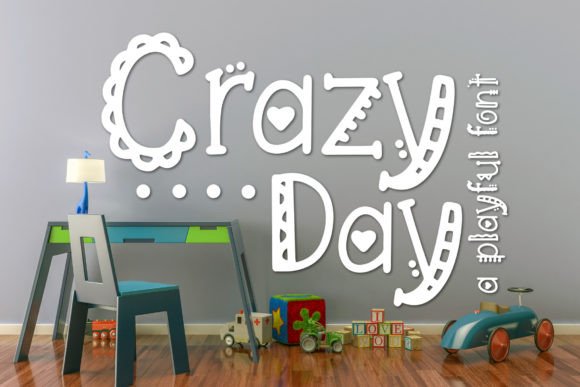
Crazy Day Font: Adding a Touch of Whimsy to Your Designs
In the world of typography, fonts play a crucial role in conveying the tone and personality of a design. Whether you’re working on a party invitation, a playful logo, or any project that requires a dash of creativity, the right font can make all the difference. This is where the Crazy Day font comes in – a whimsical and playful typeface that’s sure to bring out the fun in your designs.
What is Crazy Day Font?
Crazy Day is a unique and quirky font that’s designed to add a burst of joy to any project. Its letterforms are adorned with heart accents and dotted edges, giving it a playful and lighthearted feel. This font is perfect for designers who want to create designs that are fun, energetic, and youthful.
Uses of Crazy Day Font
The Crazy Day font is versatile and can be used in a variety of design projects, including:
- Party invitations: Whether you’re planning a birthday party, a wedding, or any other celebration, the Crazy Day font is perfect for creating fun and playful invitations.
- Playful logos: If you’re starting a new business or want to rebrand an existing one, the Crazy Day font can help you create a logo that’s fun, energetic, and youthful.
- Social media graphics: The Crazy Day font is perfect for creating social media graphics that are fun, engaging, and shareable.
- Posters and flyers: Whether you’re promoting a concert, a sale, or any other event, the Crazy Day font can help you create eye-catching posters and flyers.
Benefits of Using Crazy Day Font
The Crazy Day font offers several benefits, including:
- Unique and playful design: The Crazy Day font has a unique and playful design that’s sure to grab attention.
- Easy to read: Despite its playful design, the Crazy Day font is easy to read, making it perfect for body text and headlines.
- Versatile: The Crazy Day font can be used in a variety of design projects, from party invitations to playful logos.
- Fun and energetic: The Crazy Day font is perfect for designs that require a fun and energetic tone.
Tips for Using Crazy Day Font
Here are some tips for using the Crazy Day font:
- Use it sparingly: While the Crazy Day font is fun and playful, it can be overwhelming if used excessively. Use it sparingly to add a touch of whimsy to your designs.
- Pair it with a neutral font: Pair the Crazy Day font with a neutral font to create contrast and add visual interest to your designs.
- Experiment with colors: The Crazy Day font looks great in bright and bold colors. Experiment with different colors to find the perfect combination for your design.
In conclusion, the Crazy Day font is a whimsical and playful typeface that’s perfect for designers who want to add a touch of fun and lightheartedness to their designs. With its quirky letterforms adorned with heart accents and dotted edges, this font is sure to bring out the fun in any project. Whether you’re working on a party invitation, a playful logo, or any other design project, the Crazy Day font is a great choice.